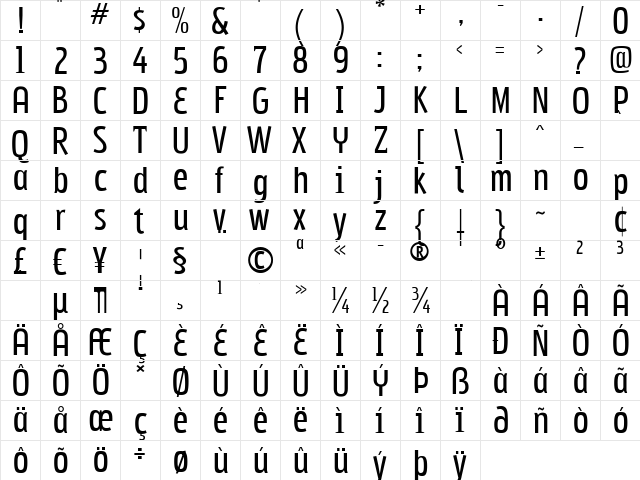
Subpear Regular
Design Context for Subpear Typeface
Subpear offers clean, dependable letterforms without strong stylistic allegiance, making it a practical choice for designers who need flexibility.
Pro Tip: Use Subpear in both headline and body roles to test its range before committing to a single application.